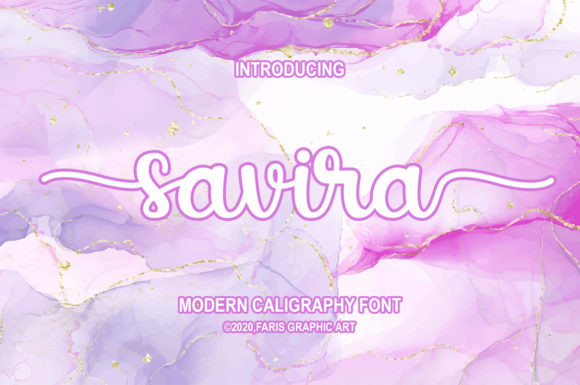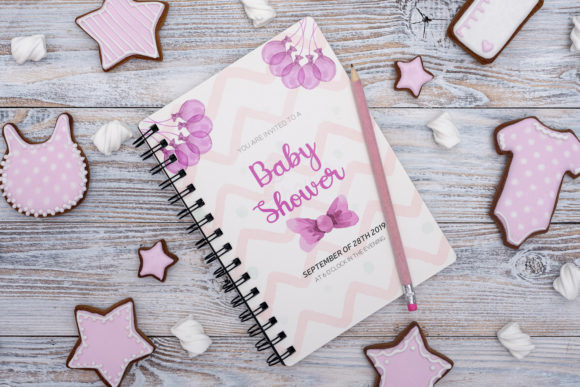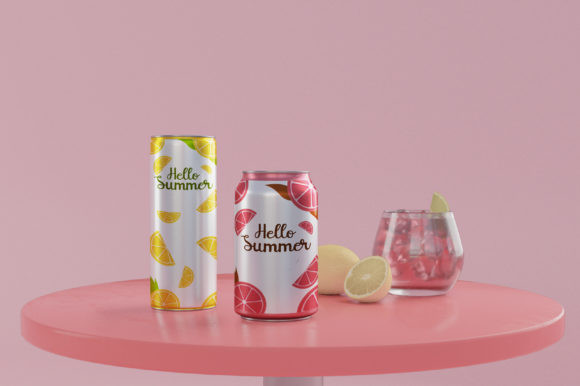
Savira Font
Savira FontSavira is a spectacular handwritten font, defined by characters that dance along the baseline. Incredibly versatile, this font fits a wide pool of designs, elevating them to the highest levels. Add this font to your favorite creative ideas and notice how it makes them come alive!